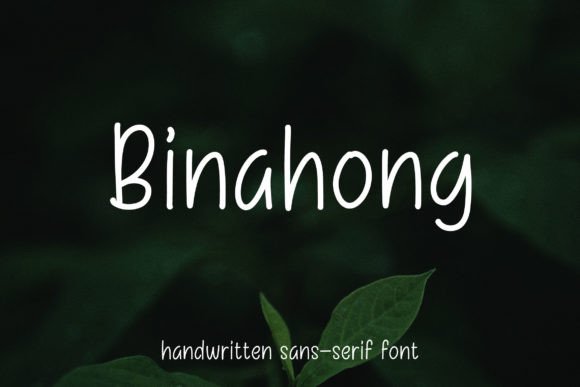
Prepare to be captivated by Binahong Font, a modern minimalist handwritten font that unveils the power of simplicity and elegance. Crafted with utmost care by Mightyfire, Binahong breathes life into your words, transforming them into captivating expressions of art.
Immerse yourself in the world of simplicity and sophistication as Binahong's graceful strokes dance across your screen. Each letter, meticulously designed, carries a distinct charm, adding a touch of sophistication to your creative endeavors. Binahong's understated beauty lends itself perfectly to a wide range of applications, making it the font of choice for discerning designers and creative professionals.
Step into the realm of boundless creativity as Binahong unlocks a world of possibilities. Let your imagination soar as you craft book titles that exude elegance, music covers that resonate with emotion, YouTube titles that captivate viewers, and advertisements that leave a lasting impression. Binahong's versatility extends to magazines, content creation, movies, and countless other projects, empowering you to transform your creative visions into tangible masterpieces.
With Binahong as your creative companion, simplicity takes center stage, allowing your message to shine through with unparalleled clarity. Its clean lines and understated charm create a visual harmony that complements any design aesthetic, ensuring that your words command attention without overpowering the overall composition.
Discover the beauty of simplicity with Binahong Font. Its modern minimalist design and handwritten charm will elevate your creative projects to new heights. Embrace the power of simplicity and let your words speak volumes with Binahong, the font that captures the essence of elegance and sophistication.